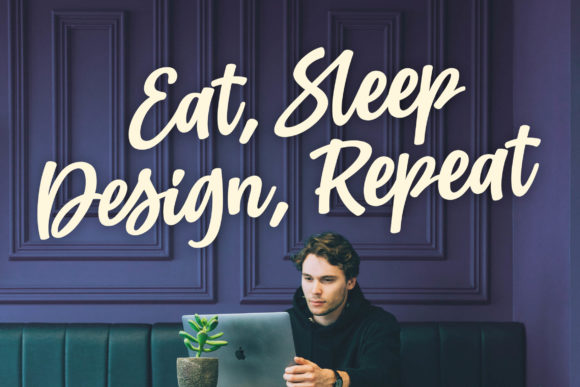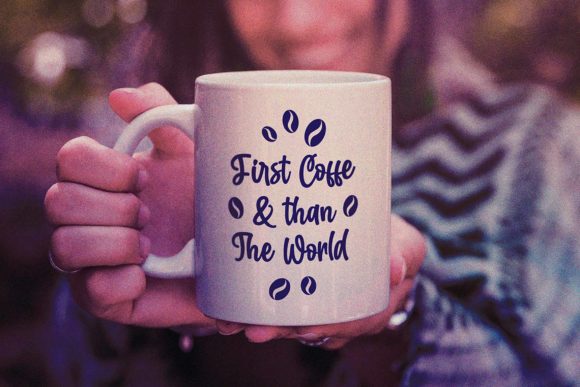
Starkey Font
Starkey Font is a cool and adaptable display font. This font is suitable for designs such as t-shirts, sportswear, posters, logos, advertisements, clothing, and more.
Starkey Font is a cool and adaptable display font. This font is suitable for designs such as t-shirts, sportswear, posters, logos, advertisements, clothing, and more. Whatever the topic, this font will be a great asset to your font collection, as it has the potential to enhance any creation.